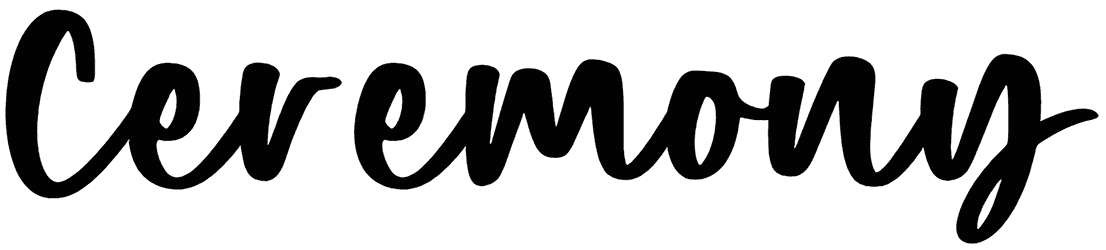
Ceremony Font
For tasks that need to be glossy, Ceremony can be helpful in terms of seizing everyone’s attention and interest. The full, complete letters in this script font put on a charm to drive any project from kickoff to launch.
This handwritten font is trying to give a potential chance to stand out over others. Try it on many cosmetic packs, invitations, posters, accessories, and more, and see how pleasing it sounds. Push it away and let the joy part start now!